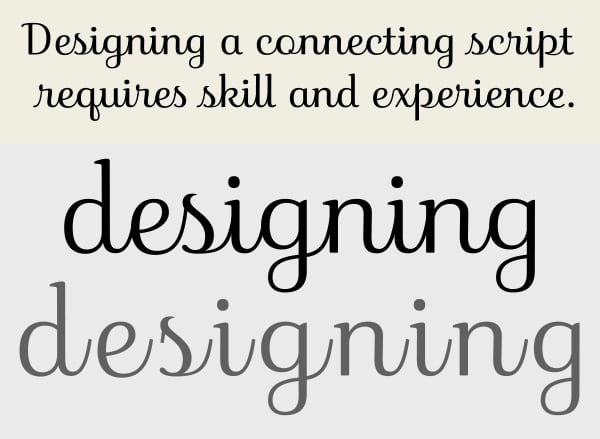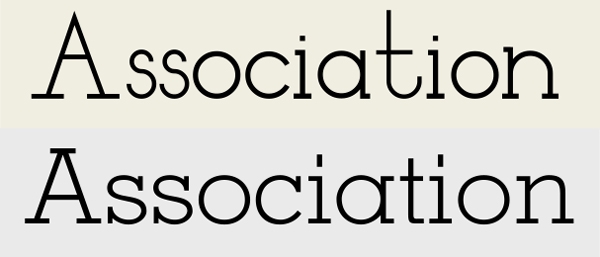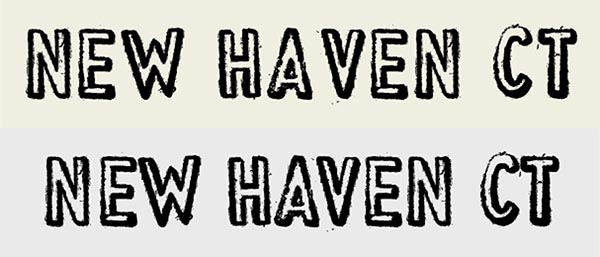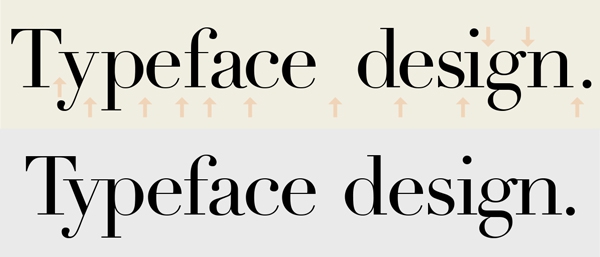
Free Fonts: Are They Worth It or Not?
One of the most frequent questions I am asked by students and designers alike is, is it worth it to buy fonts when there are so many free fonts available? Having worked with dozens of typeface designers during my years as director of typeface development for ITC (International Typeface Corporation), I have a strong, somewhat emotional reaction to this. But truth be know, the answer is not a simple yes (or no). It is an important query that deserves a complete, in-depth reply.
A bit of history
Prior to the digital age, typefaces were drawn by hand, that is, with pencil, pen and ink, and paper or vellum. It was an extremely lengthy, painstaking process that often took months to complete a single typeface, and even years for a typeface family. No matter what the historical era or timeframe, designing a typeface is a skill and an aesthetic that takes years to learn to do properly. The design process not only consists of drawing individual glyphs that make up the complete character set of hundreds, if not thousands of characters; it also requires the knowledge of how to properly space and kern the characters in order to create even “color and texture.”
Most typeface designers were (and still are) self-taught, as up until the past few decades, there was no formal training in typeface design. Today, there are three programs (that I am aware of) that specifically teach this art and skill: University of Reading in the UK, Royal Academy of Art, the Hague, and most recently, The Cooper Union, NY. Even so, the majority of type designers today are still self-taught. But learning to design a typeface cannot be learned in a vacuum; it requires years of practice including acute observation of existing, well-designed typefaces, learning to use the font production software (which is a challenge in itself), as well as networking with other type designers. All in all, it takes time, patience, and a strong commitment.
Insouciant, designed by James Montalbano of TerminalDesign, is an example of a well thought out, and skillfully drawn script. Connecting scripts are some of the most difficult type designs to draw, as they require perfectly drawn connectors that flawlessly join with all other characters. The lower example shows the unconnected individual letterforms.
I’ve divided free fonts into three categories: promotions from reputable foundries; those made by novices and hobbyists; and pirated and knockoff fonts.
Free commercial fonts as promotions
The “safest” free fonts are those that are offered by reputable font foundries and resellers. Many offer a free font or fonts as a promotion, either with a font sale or for signing up on their web site. The latter is a good thing as they often send out regular mailings announcing new typeface releases, best sellers, educational articles, and special promotions. The fonts they offer for free might be a single-weight display design, or one or more weights from a larger family intended to entice you into purchasing the rest of the family. There is nothing wrong with this – in fact, is a great way to allow a user to “try before you buy.”
Monotype (fonts.com) offers a monthly free font with any purchase, as well as flash sales.
Myfonts.com has many rotating font promotions, making the purchase of fonts more affordable if they offer the one(s) you need or like.
Note to students and educators: Some foundries and resellers offer free font collections to students for non-commercial usage (such as the Monotype Student Font Pack), so ask and you might receive.
Free fonts made by novices and hobbyists
These days, anyone can create and upload a font. So how did this come to be? The digital age, and the subsequent availability of affordable font production software, has provided the ability to anyone to try their hand at designing a typeface. This, in turn, has resulted in many type design hobbyists and typographic “weekend warriors” with little or no training and experience producing fonts, many of which they make available for free. These amateur efforts frequently have inferior and inconsistent design traits, digital outlines with bumps, bad curves and unnecessary points, as well as uneven spacing and poor (or non-existent) kern pairs.
So what’s wrong with downloading the occasional free font that appears to look good and suits your design purpose? The problem is that most type users, including some of the most seasoned professionals, do not have the trained “typographic” eye required to easily see the difference between a well-conceived and designed typeface, and the product of a novice. Just because your design chops are finely-tuned, and you are skilled at choosing and combining typefaces, does not, in turn, mean you are able to recognize the design and spacing details that go into a finely crafted, professional typeface design. So while free fonts falling under this category might be fine for personal use, they’re usually not a reliable choice for professional usage.
This free typeface (upper) is very poorly designed, with bad proportions, inconsistent stroke widths, varying serifs, and poor spacing. Notice the bumpy spine of the ‘s’ due to the inexperience of the its author drawing curved strokes. Novices often think that geometric designs are the easiest typefaces to draw, but in reality they are some of the most difficult. Below it is a setting of Memphis, a well-drawn slab serif with proper proportions and design characteristics.
Upper: While the actual design of this free font has some merit, it contains no kern pairs, making for uneven overall spacing. It also has a very limited character set with no punctuation (except for a period) or figures. Lower: Both the letter and word spacing have been improved with the addition of manual kerning pairs, which requires skill and experience to get just right.
Even a well-designed typeface can have bad spacing and kerning, as illustrated by the upper setting of Didot, whose poor spacing I simulated. The actual typeface, below it, looks quite good, but that is not always the case with free fonts.